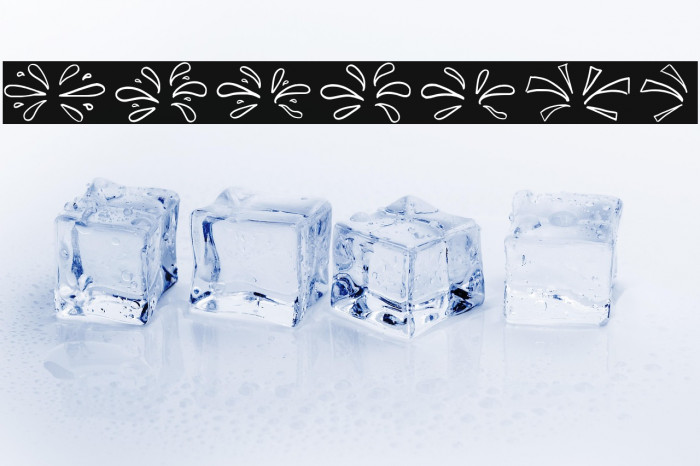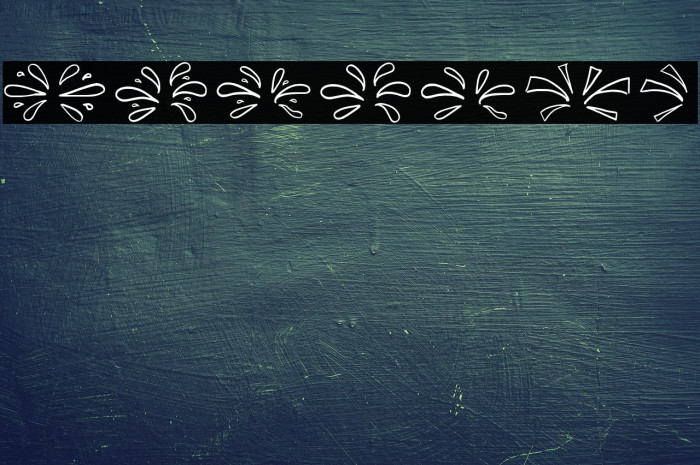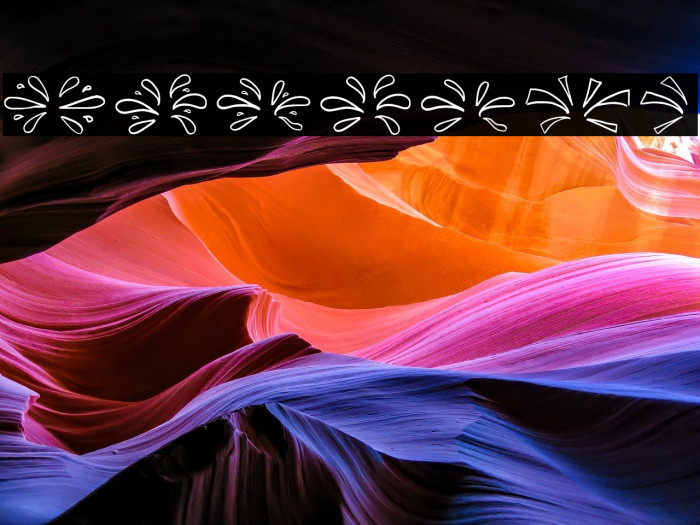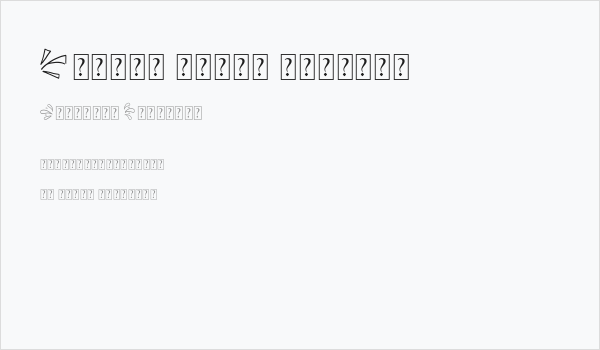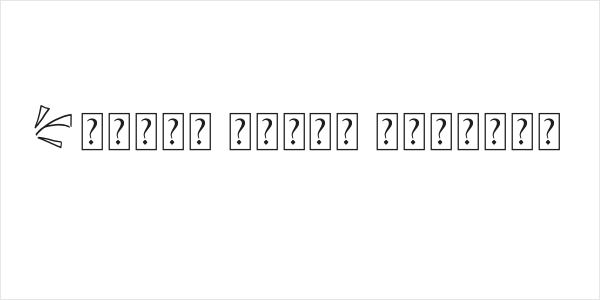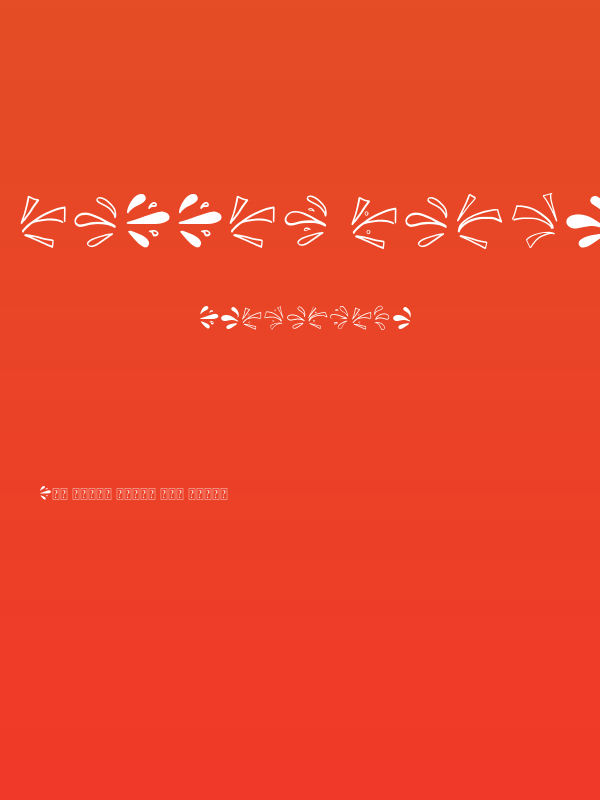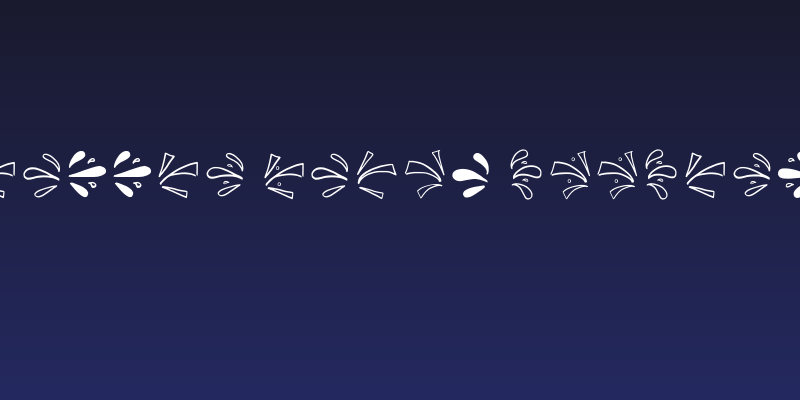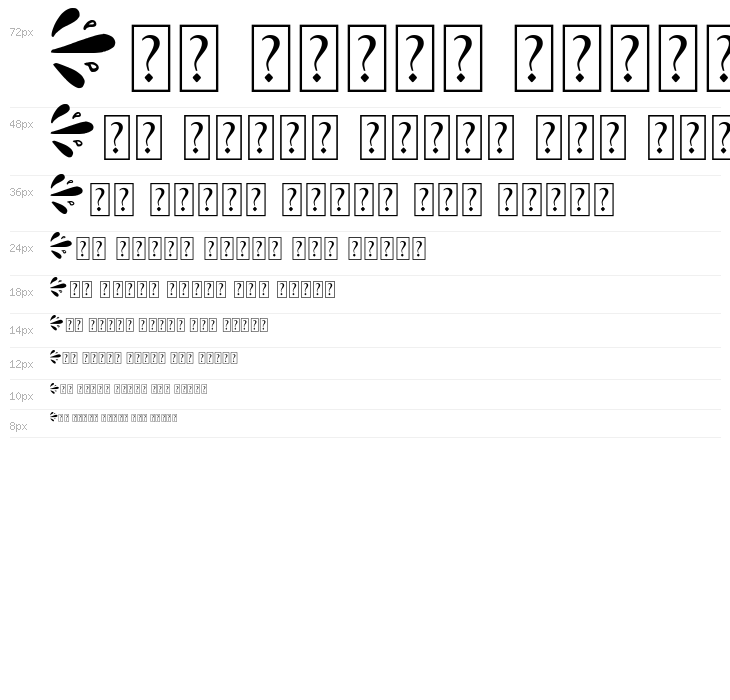
Little pinky doodles Font
Little pinky doodles Description
This design features playful, abstract doodles that resemble whimsical bursts or splashes. The elements are arranged in a repetitive pattern, creating a lively and dynamic visual effect. The doodles vary in thickness and style, with some lines being bold and others more delicate, adding to the overall charm and spontaneity of the design. The use of both filled and outlined shapes contributes to a sense of movement and energy, making it an eye-catching and engaging design.
| Use Case | Decorative elements, Illustrations |
| Proposed Projects | Ideal for use in children's book illustrations, playful branding, or as decorative elements in creative projects. |